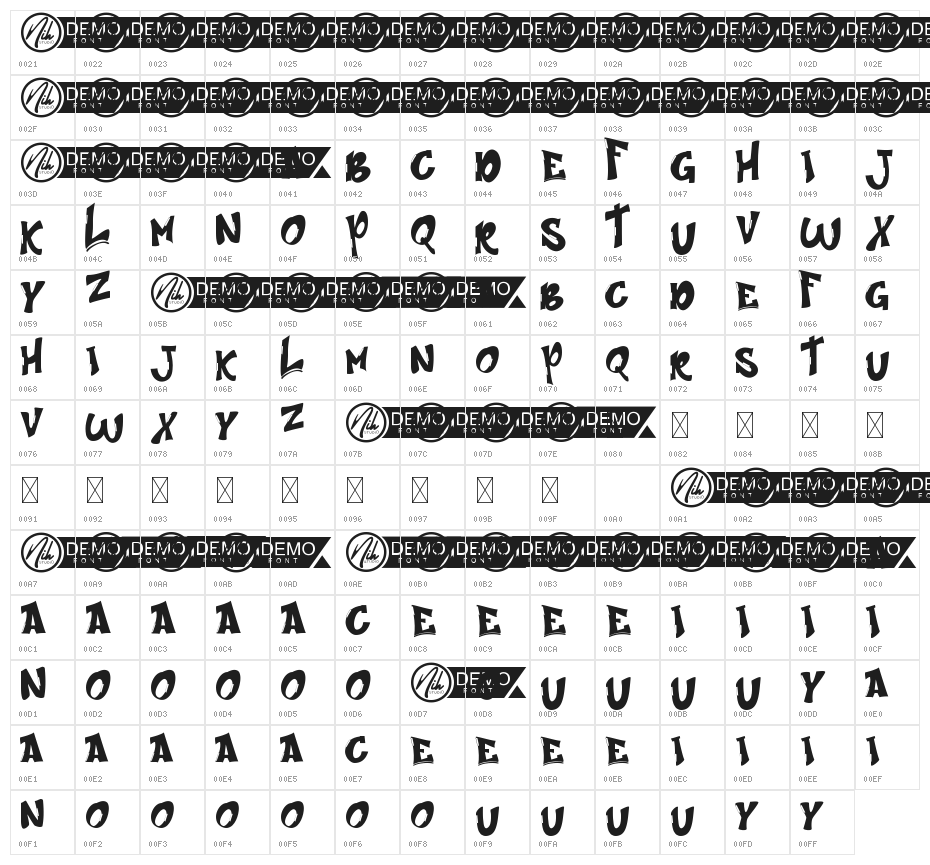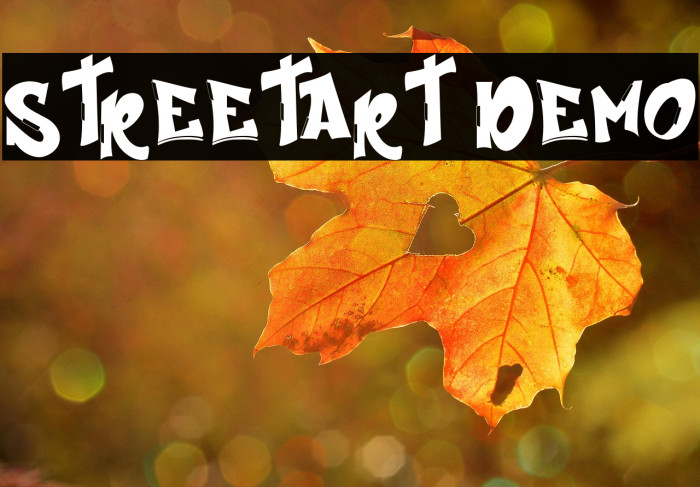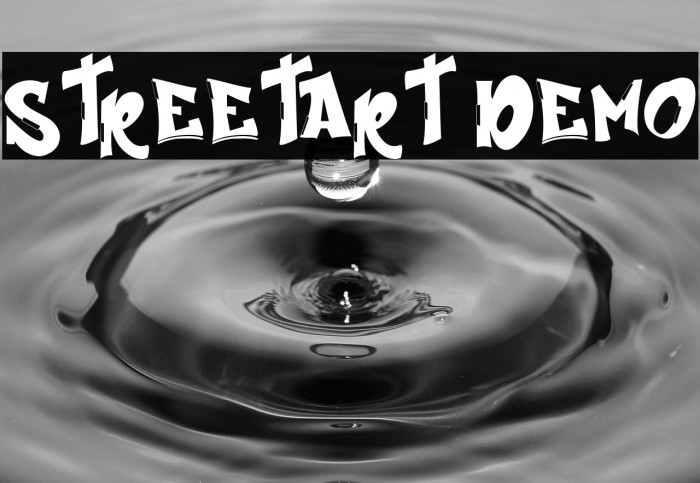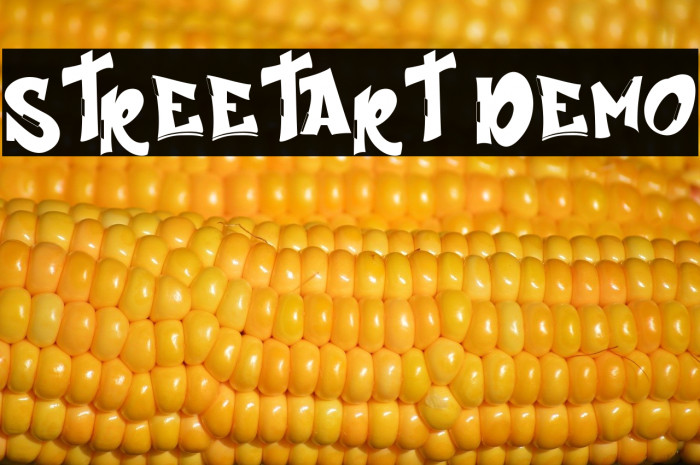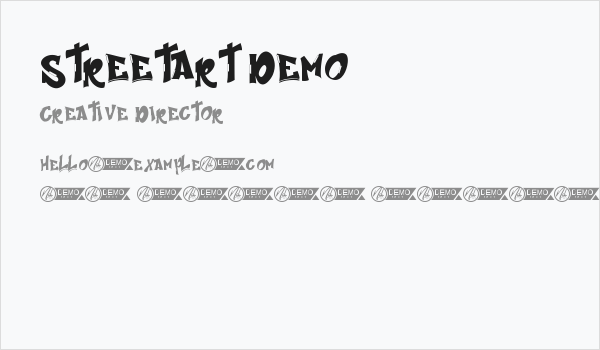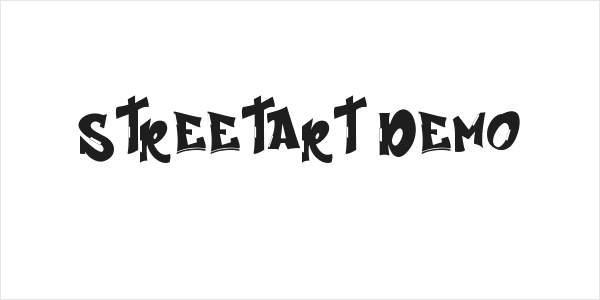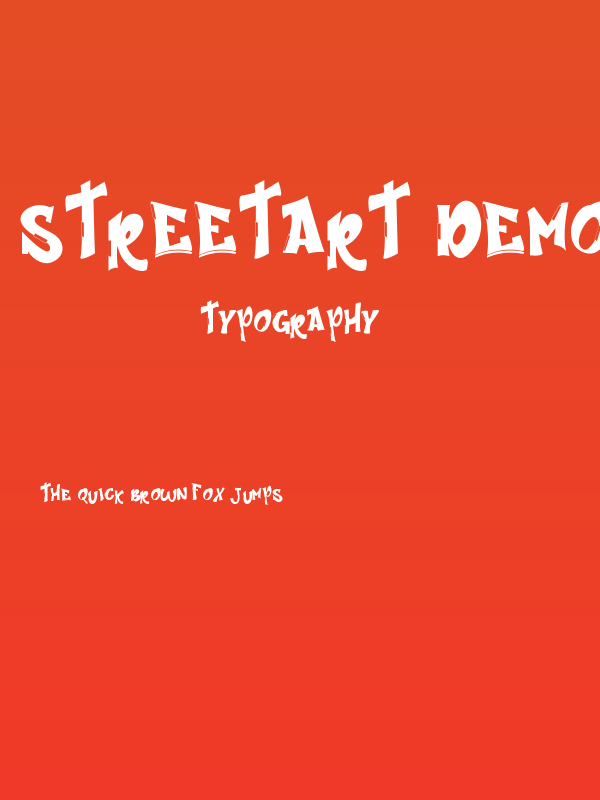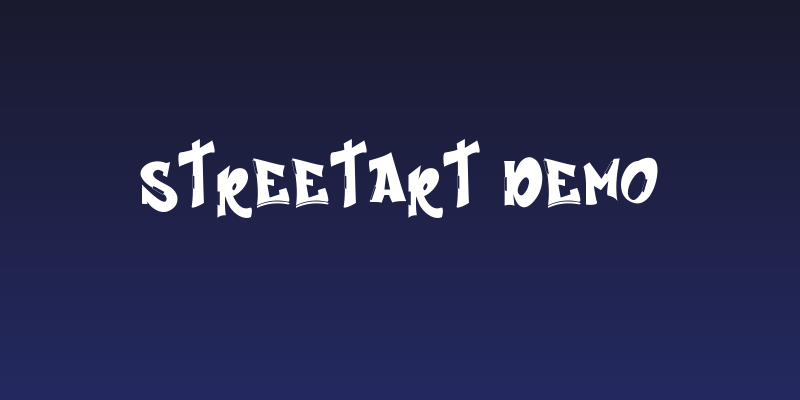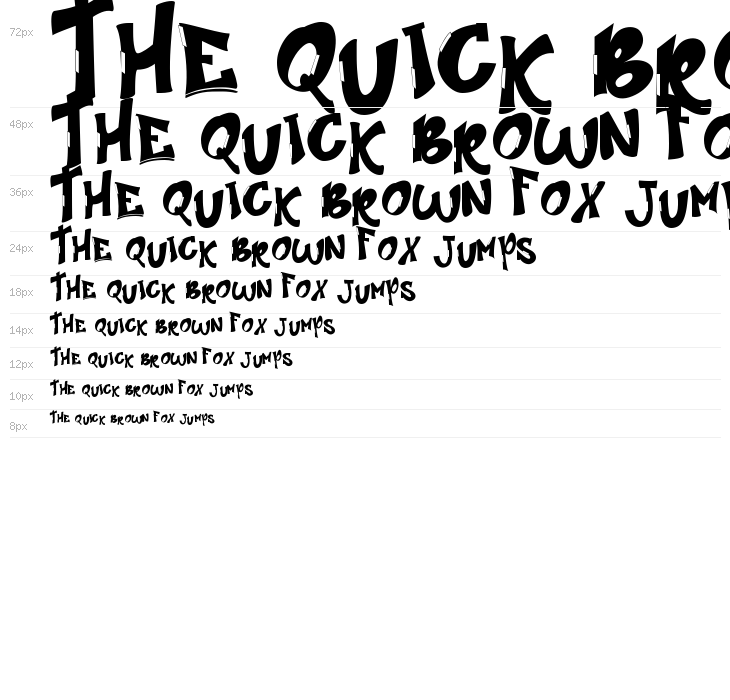
Streetart Demo Font
Streetart Demo Description
This font exudes a bold and dynamic street art vibe, characterized by its sharp angles and irregular shapes. The letters are designed with a sense of movement and energy, capturing the essence of urban graffiti. The uppercase and lowercase letters maintain a consistent style, with exaggerated curves and pointed edges that create a sense of urgency and creativity. The numbers and special characters follow the same aesthetic, ensuring a cohesive look across all text. This font is perfect for projects that aim to convey a sense of rebellion, creativity, and modern urban culture.
| Proposed Projects | Ideal for streetwear branding, music album covers, urban event posters, and graffiti art projects. |